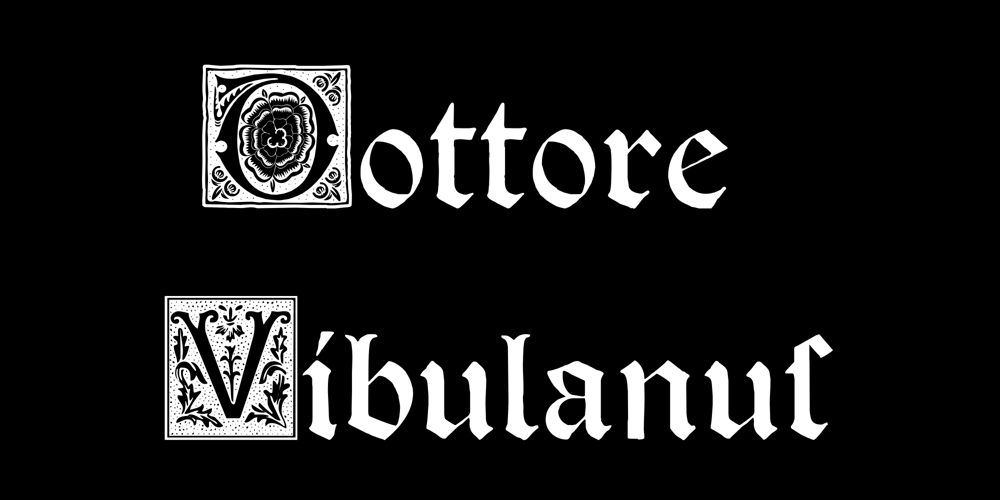
Dottore Vibulanus
Dottore Vibulanus font
Dottore Vibulanus Font Family was designed by Paulo W and published by Intellecta Design. Dottore Vibulanus contains 1 styles and family package options. Dottore Vibulanus : step back into history with our ornamental gothic blackletter typeface, a stunning reproduction of ancient scripts and medieval manuscripts. This font imbues every word with detail-rich flourishes that highlight its timeless elegance, a testament to more traditional times of unrivaled craftsmanship. Unveil a sublime fusion of luxury and classic sophistication, making your titles, invitations, and design work echo with a uniquely historical aesthetic. Ideal for projects seeking that touch of age-old elegance, this font elevates your design from mere communication to a stately affirmation of tasteful refinement.